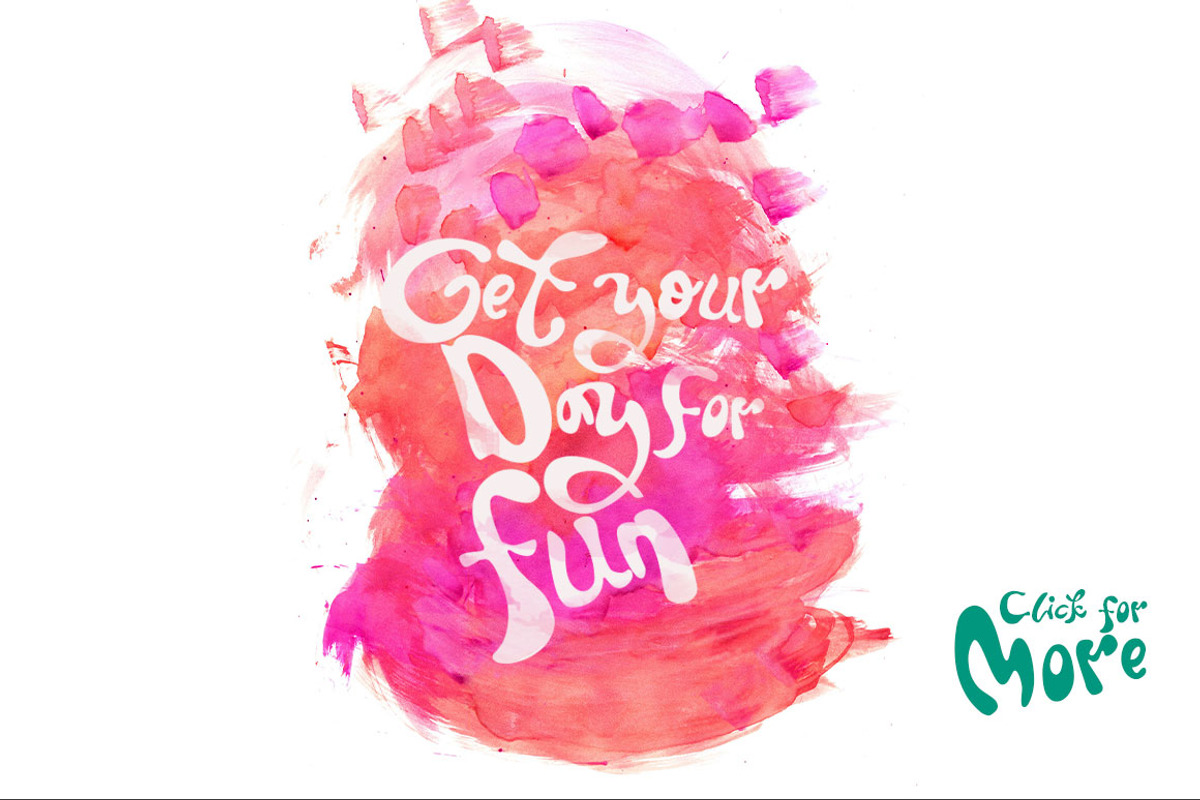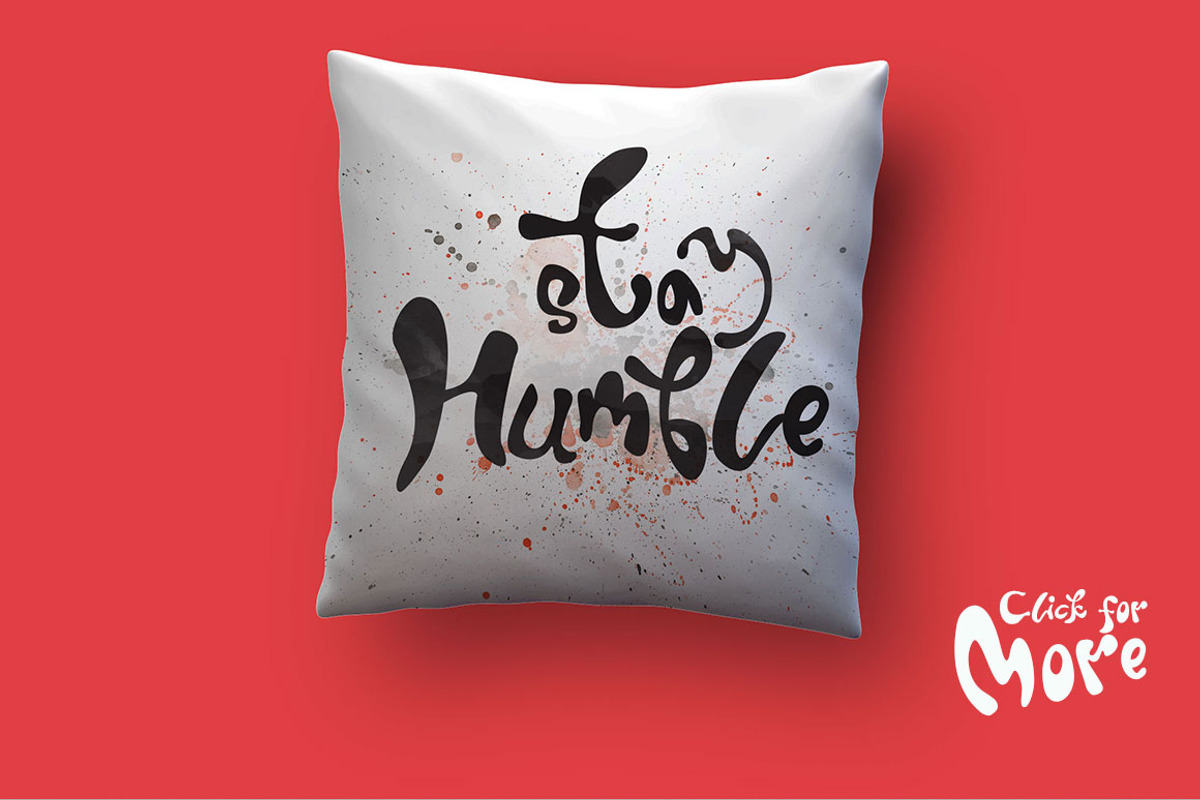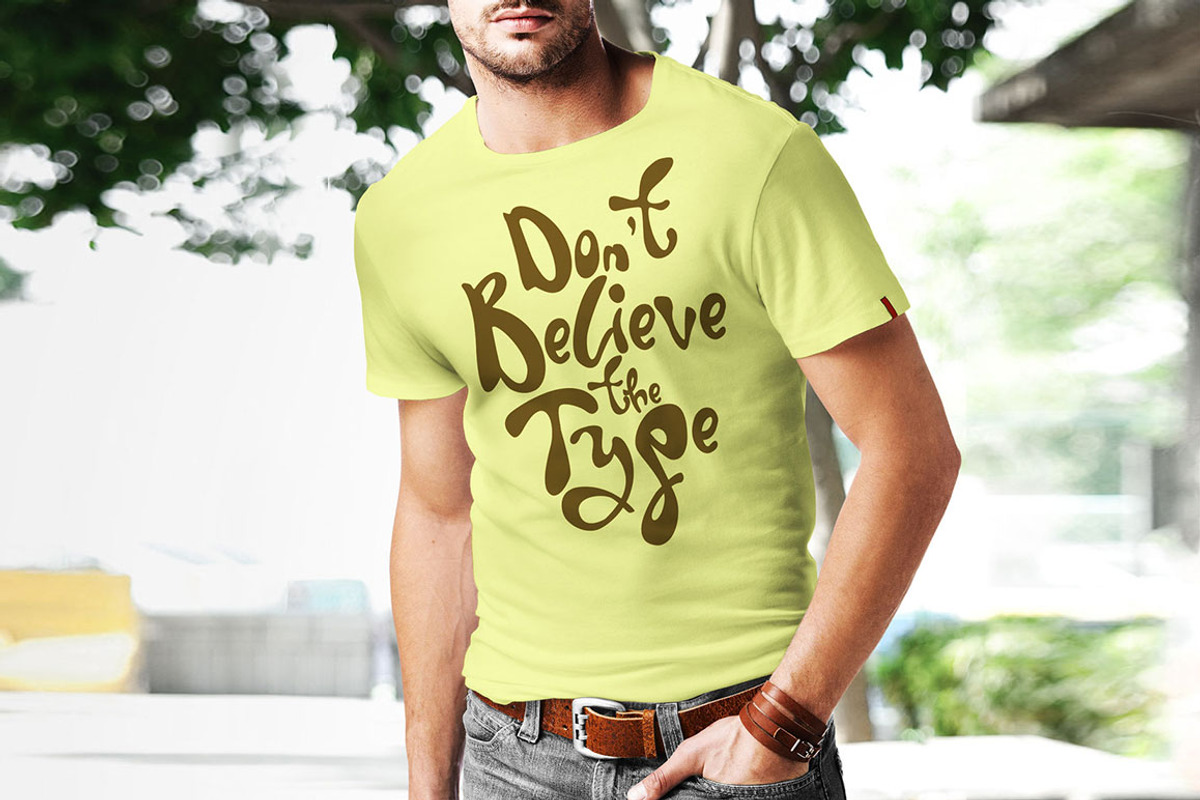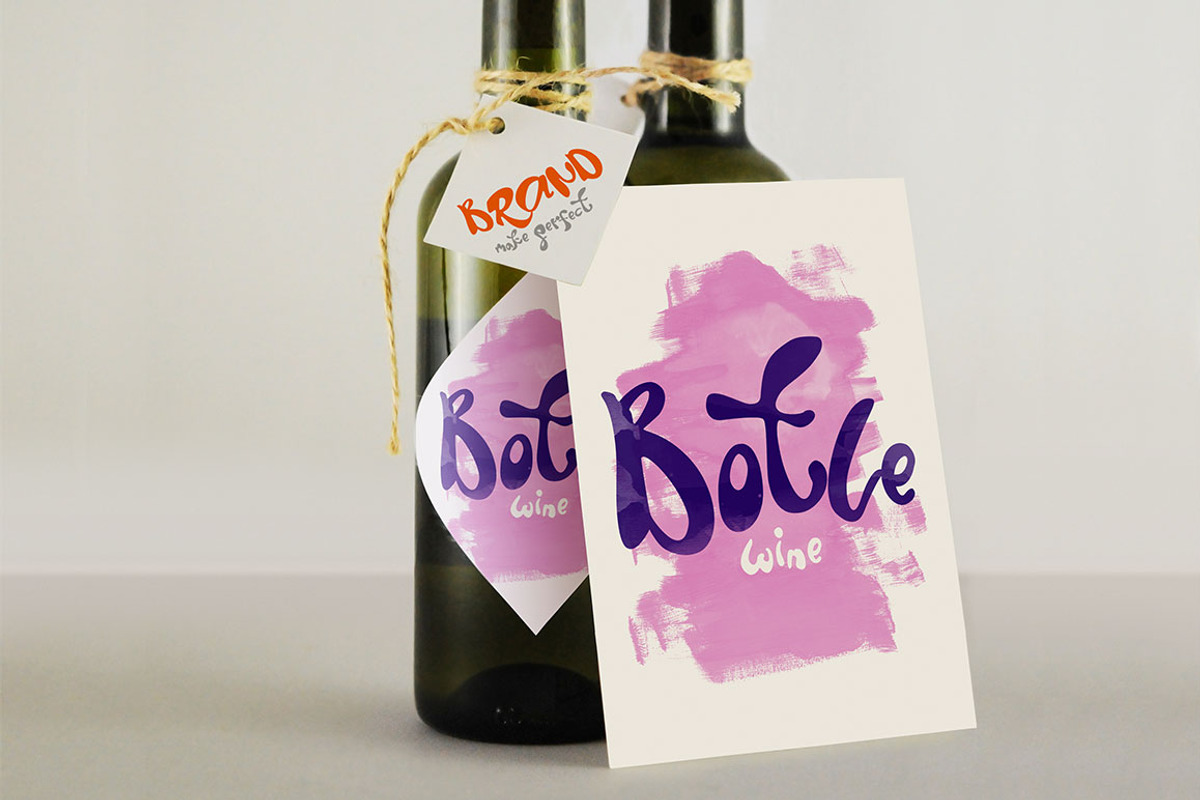
Twice Display Typeface
Twice Display Typeface by Dirtyline Studio is a font selected for branding, posters, packaging, typography.
Why Twice Display Typeface is worth a look
Twice Display Typeface by Dirtyline Studio fits naturally into Branding, posters, packaging, typography.